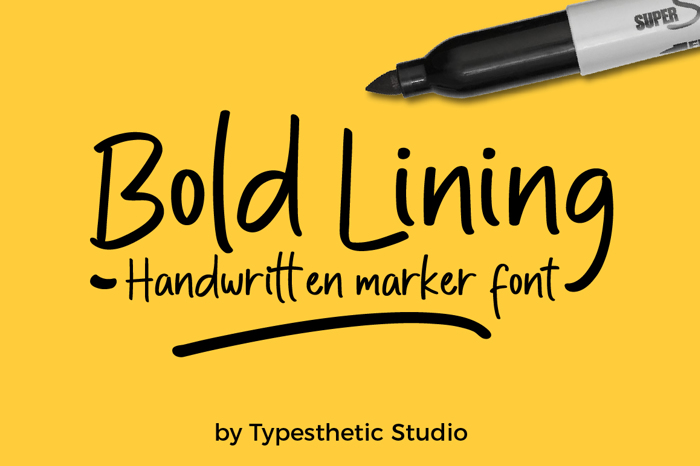
Bold Lining Font
Bold Lining is a bold and playful, but also elegant handwritten font. It has beautiful and neat characters and as a result, it matches a wide pool of designs.
This font is perfect for many different project such as logos, branding, social media, crafty DIY projects or anything.